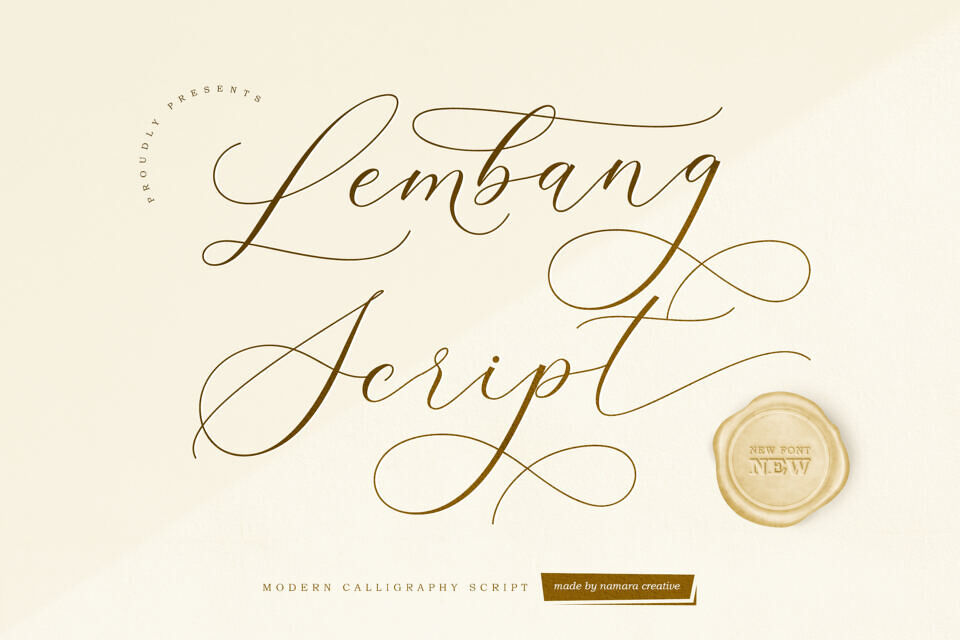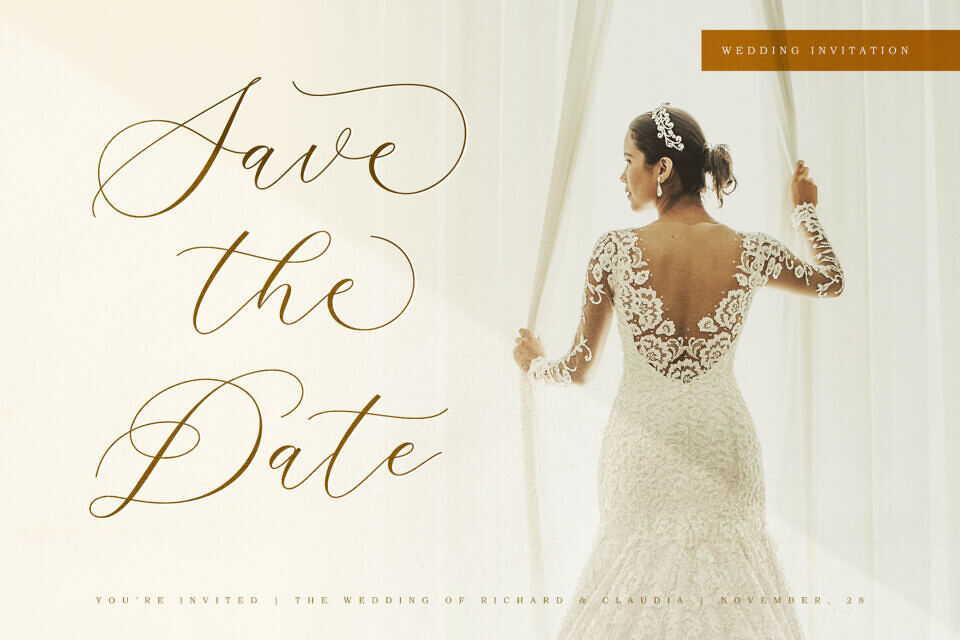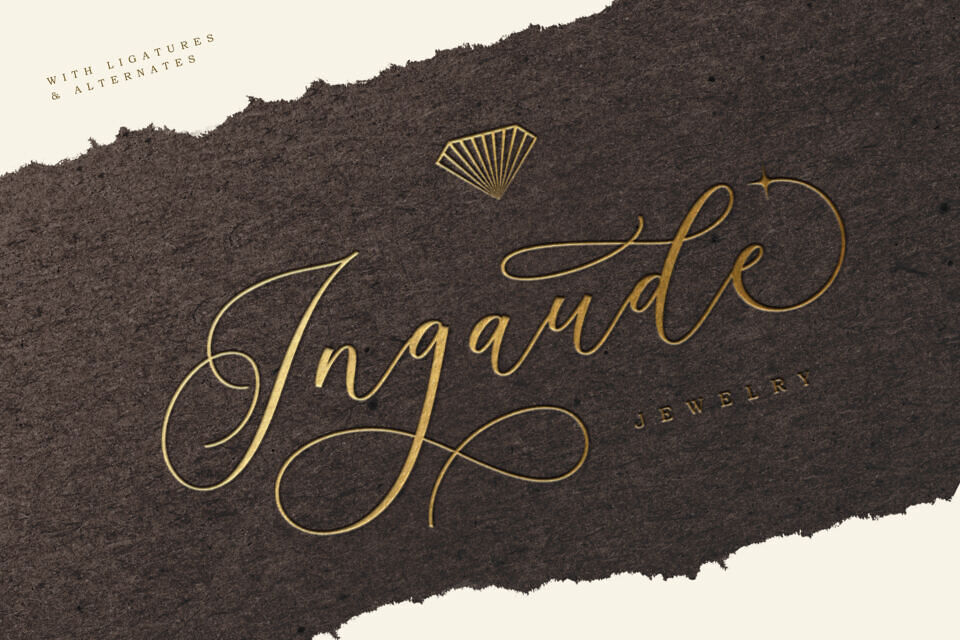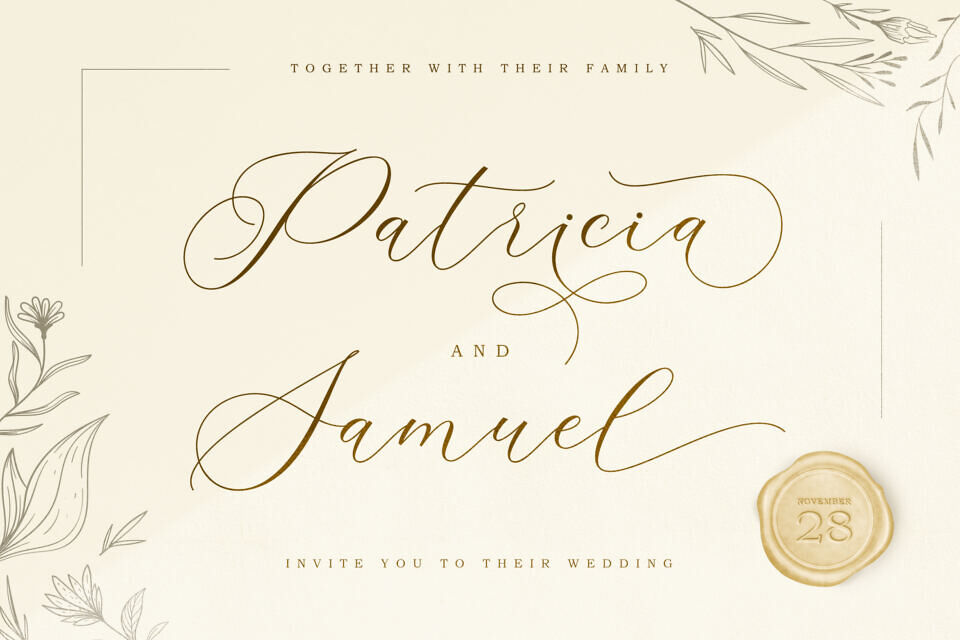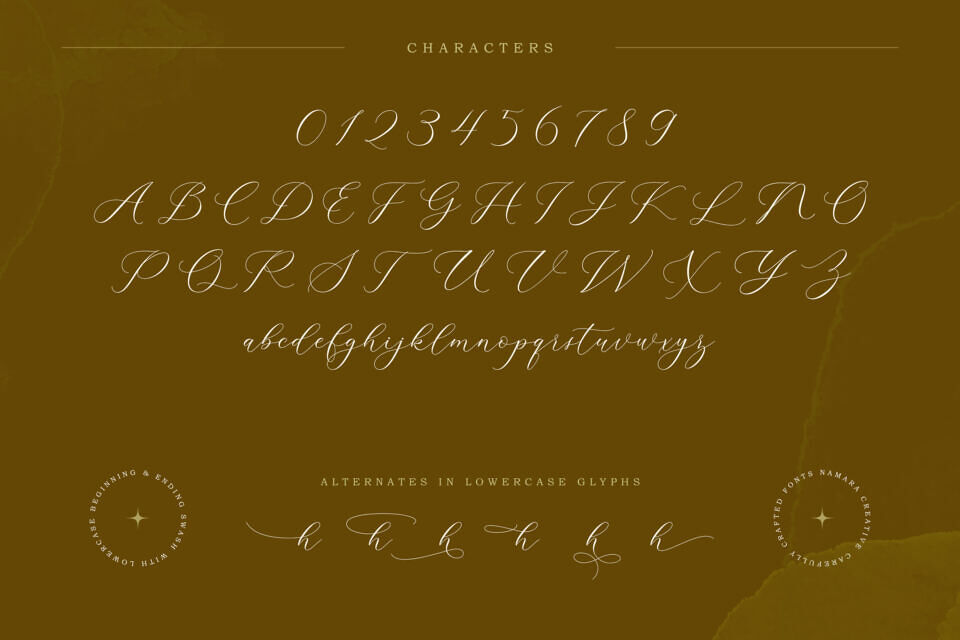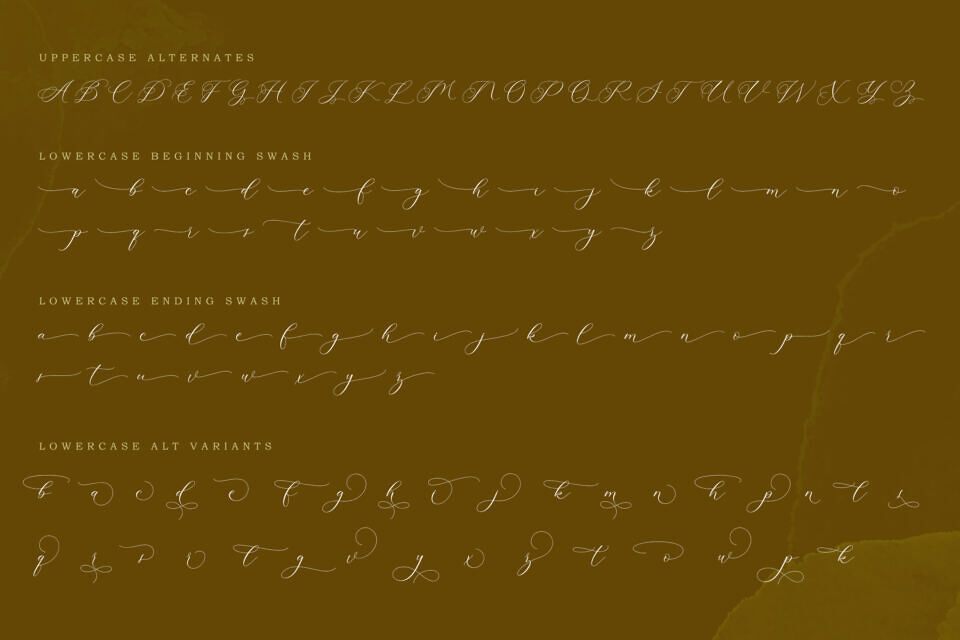
Lembang Script Font
Decorative calligraphy script font will elevate any project to a new level of elegance and sophistication. The intricate design of the script adds a touch of sophistication that is bound to leave a lasting impression.
Perfect for wedding invitations, logos, stationery design, postcards, letterpress design, headings or titles, and many more. Get ready to captivate your audience with a truly extraordinary look!